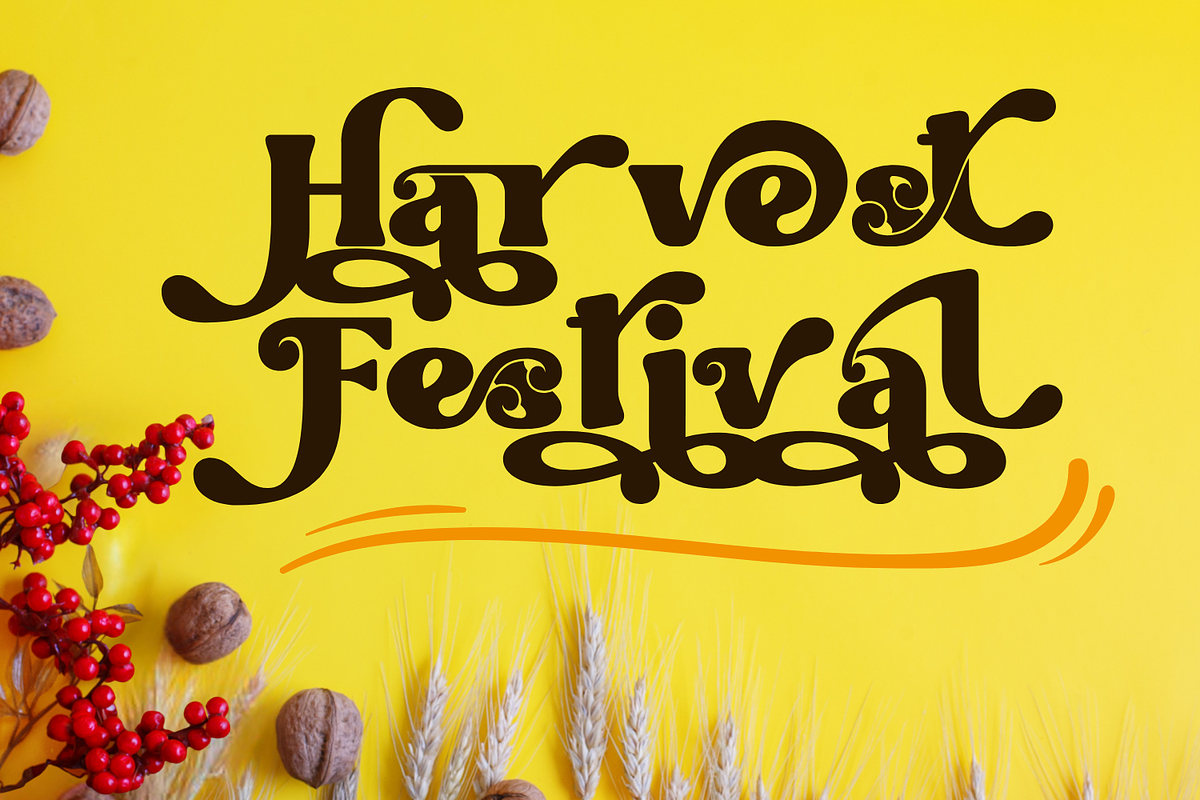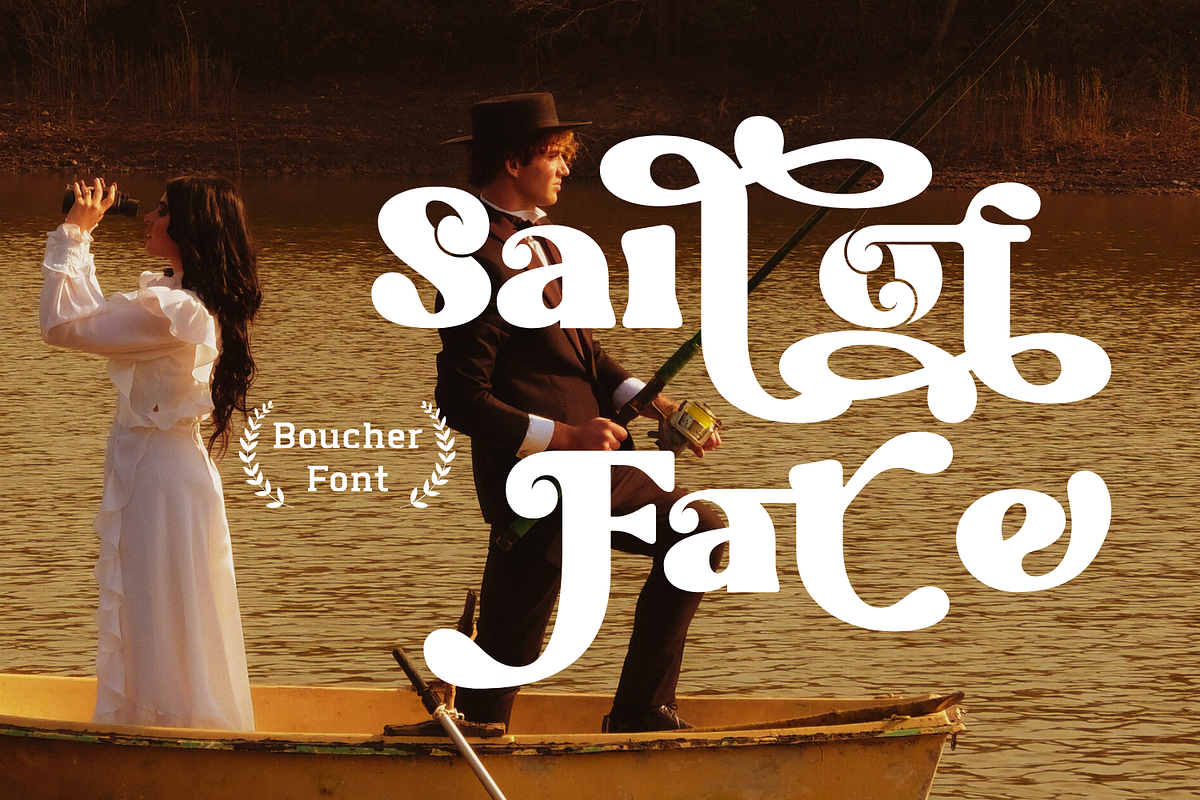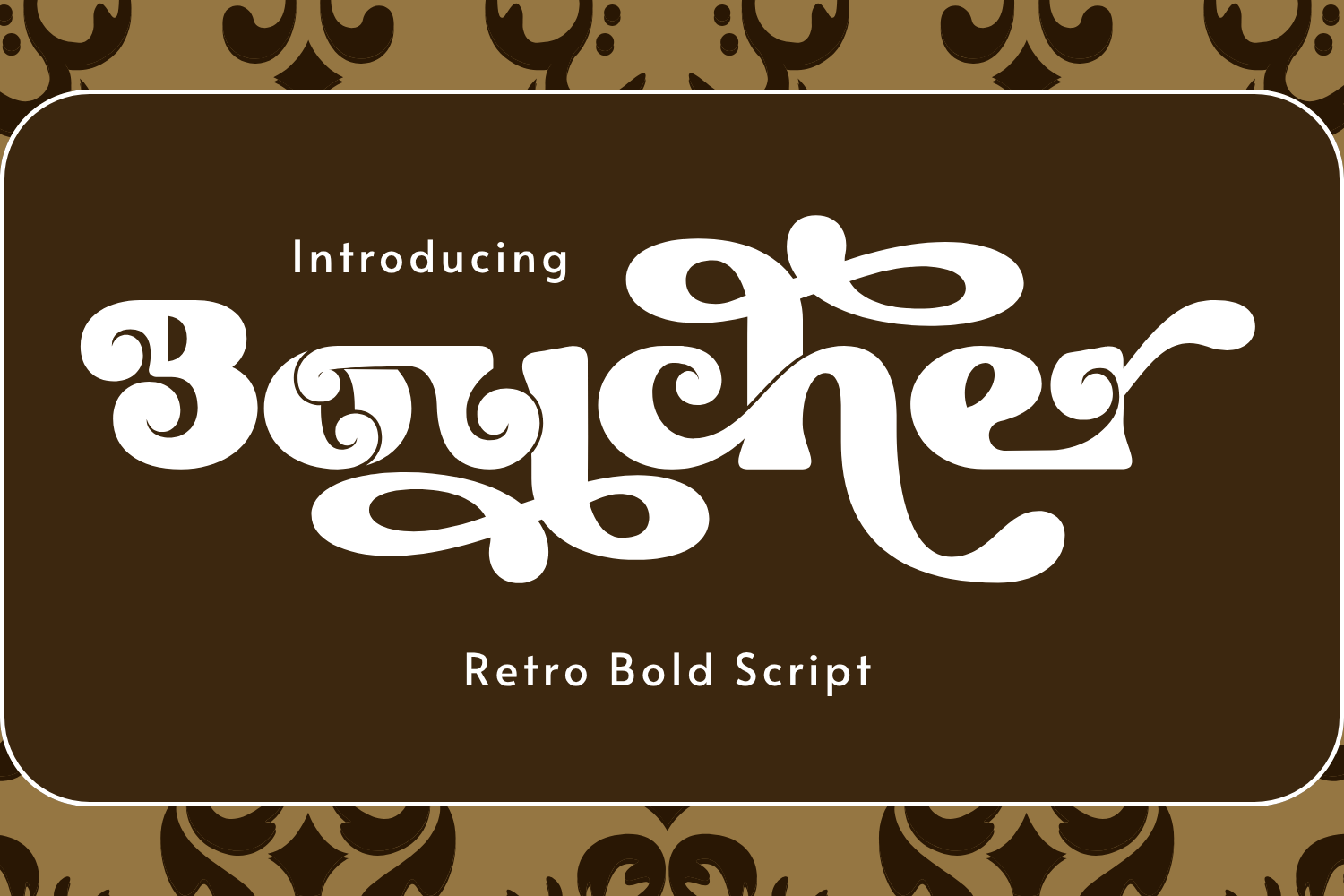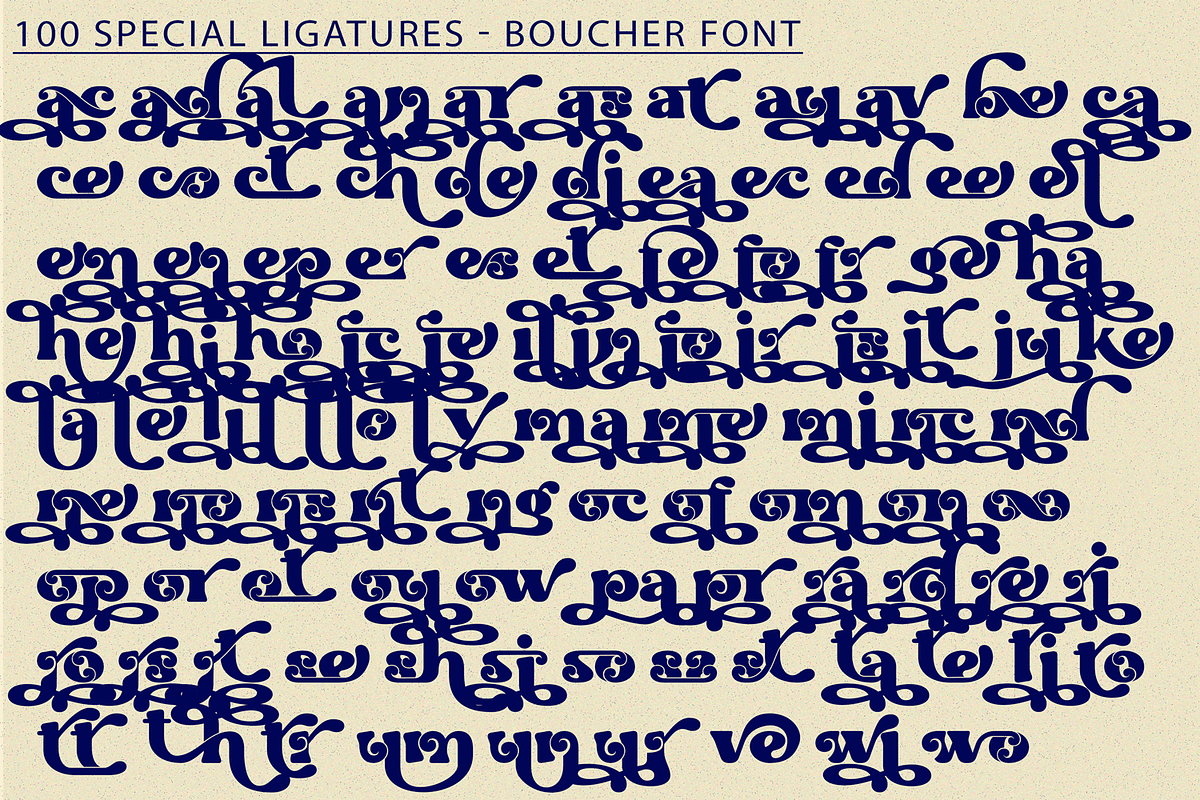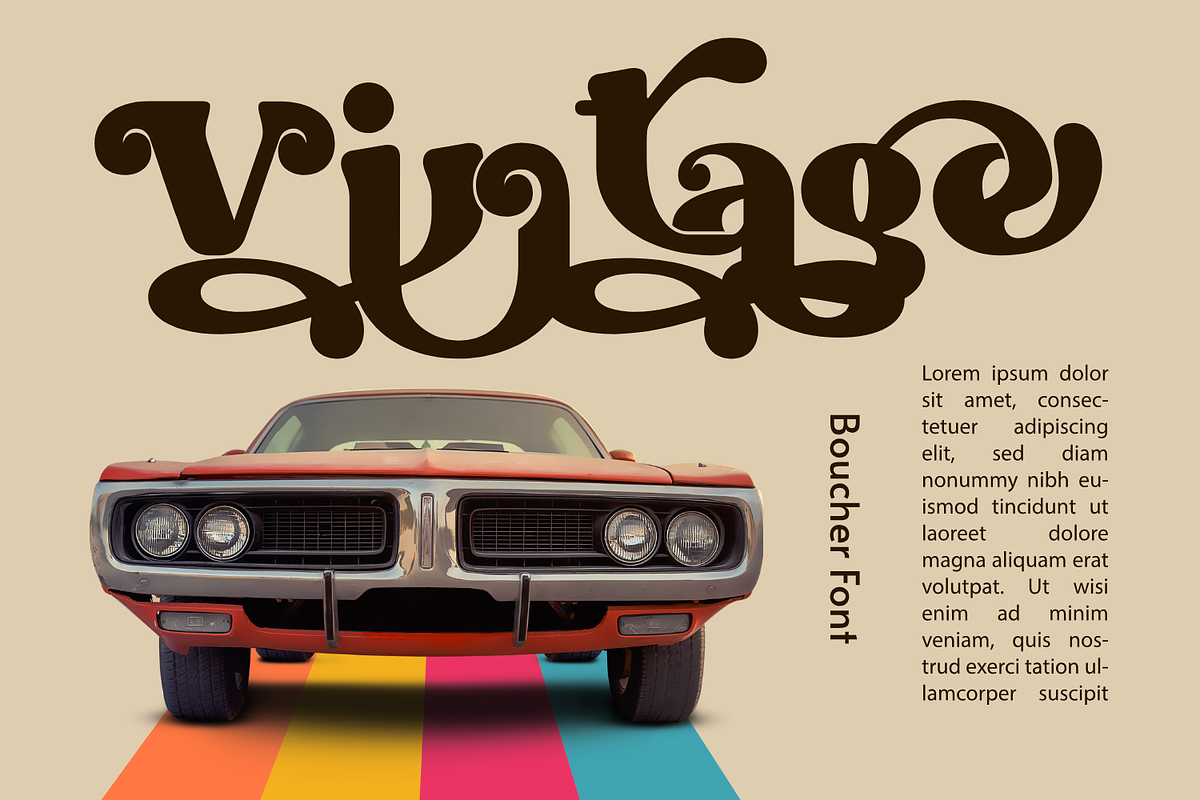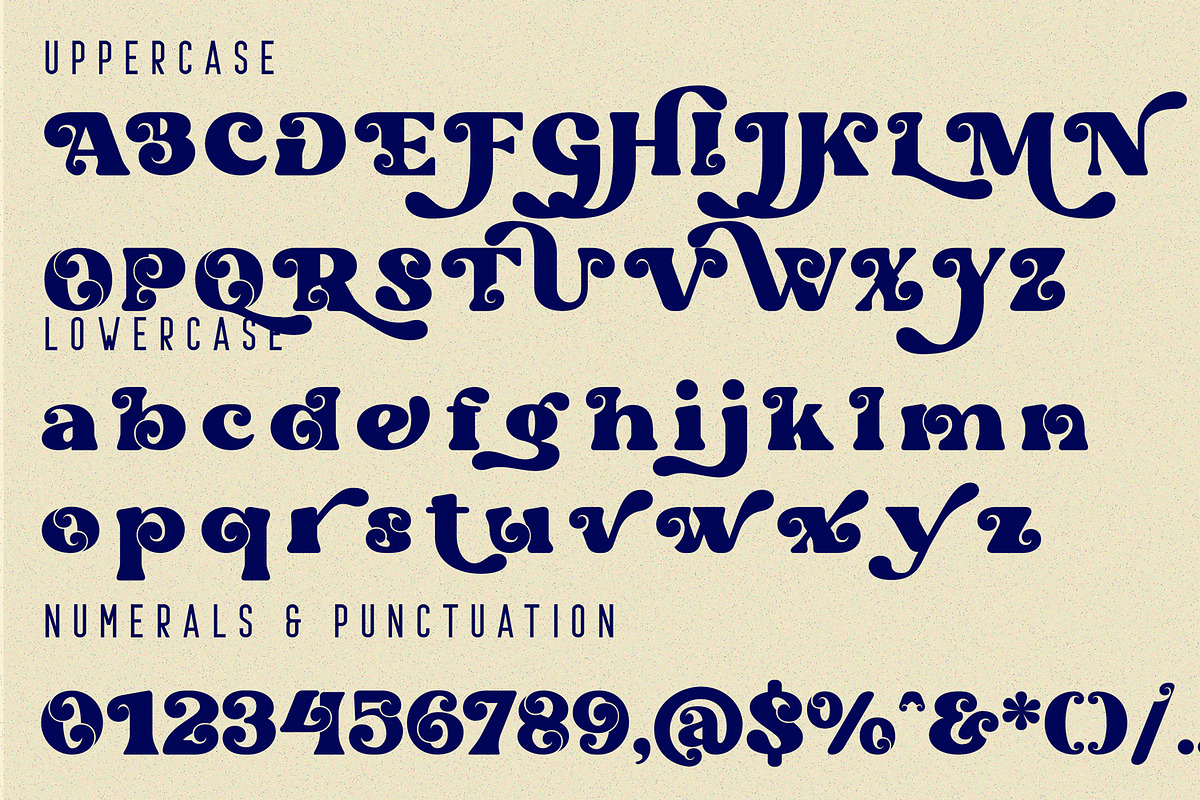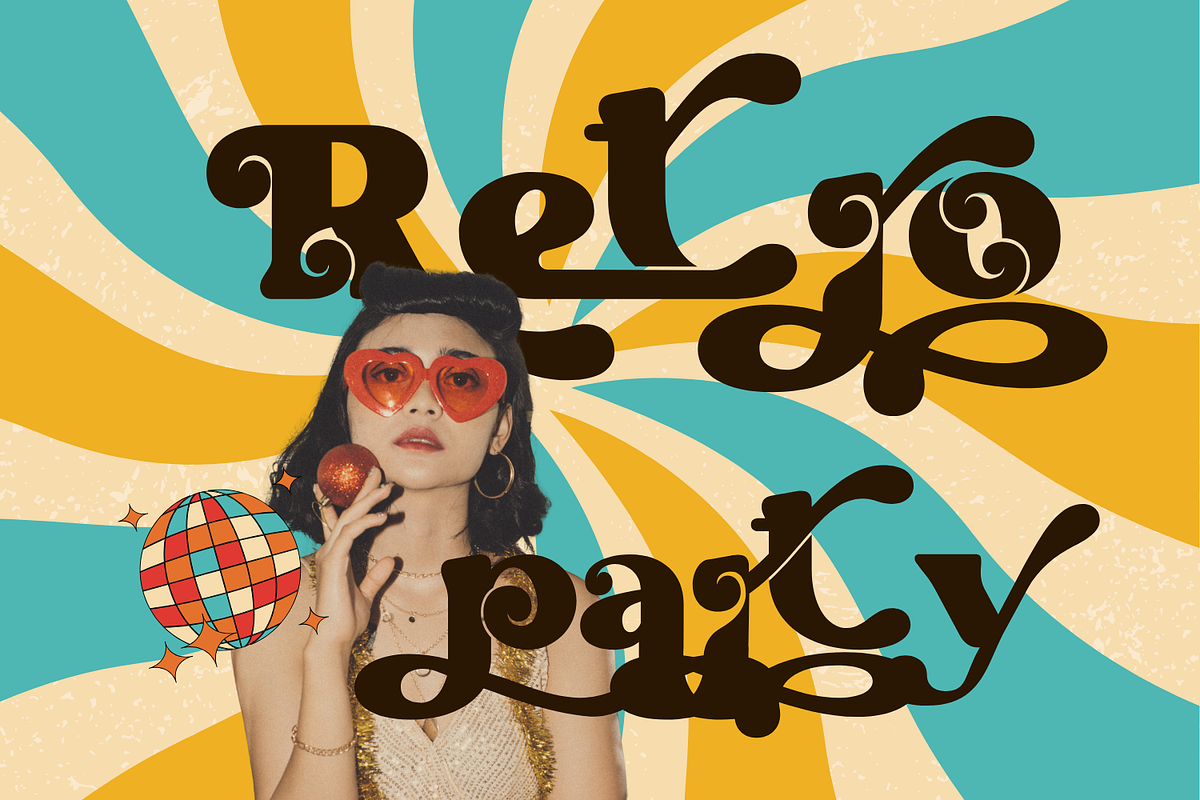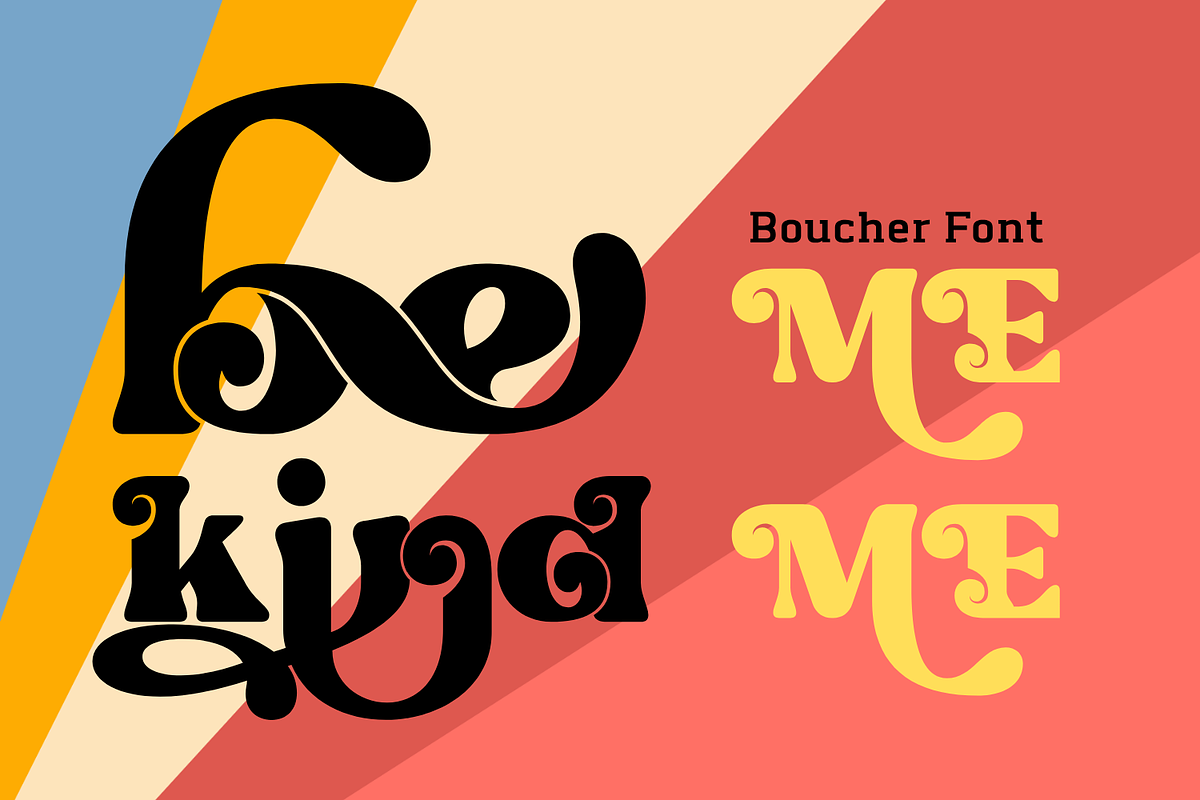
Boucher - Retro Ligature Font
Boucher - Retro Ligature Font - Psychedelic Retro Swirl Font, is a bold and whimsical display font rooted in the spirit of 60s and 70s psychedelia. Overflowing with decorative loops, curls, and dramatic swashes, this typeface brings retro charm and bold personality to any design it touches. Whether you're creating a groovy poster, a funky logo, or an artisan product label, this font turns every letter into a vibrant piece of art. Its high contrast shapes and ornamental ligatures give your typography an expressive edge while maintaining readability in large sizes.
🔤 Font Features:
- Uppercase and Lowercase Characters
- Around 100 Curly Ligatures & Alternates
- Accented Characters for Multilingual Support
- Flourish-Heavy Style with Retro Funky Energy
🔤 About 100 ligatures combined with Stylistic Alternates Font:
ac ad al an ar as at au av be ca ce ch co ct de di ea ec ed ee el em en ep er es et fe fo fr ge ha he hi ho ie ic il in io ir is it ju ke la le li ll lo ly ma me mi nc nd ne ng no nt ns oc of om on oo op or ot ou ow pa pr ra rd re ri ro rs rt se sh si so ss st ta te th ti to tr tt um un ur ve wi wo